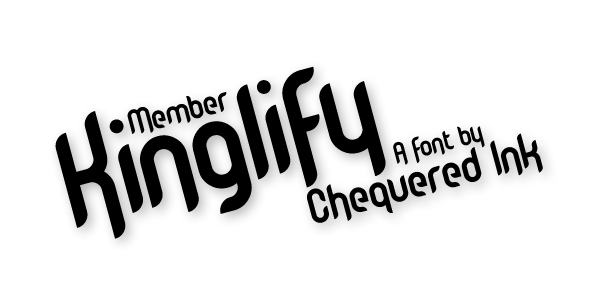
Member Kinglify
Named for: Kinglify + South Park’s member-berries
This was a nostalgic throwback to the first font I made in my “modern era”, Kinglify.